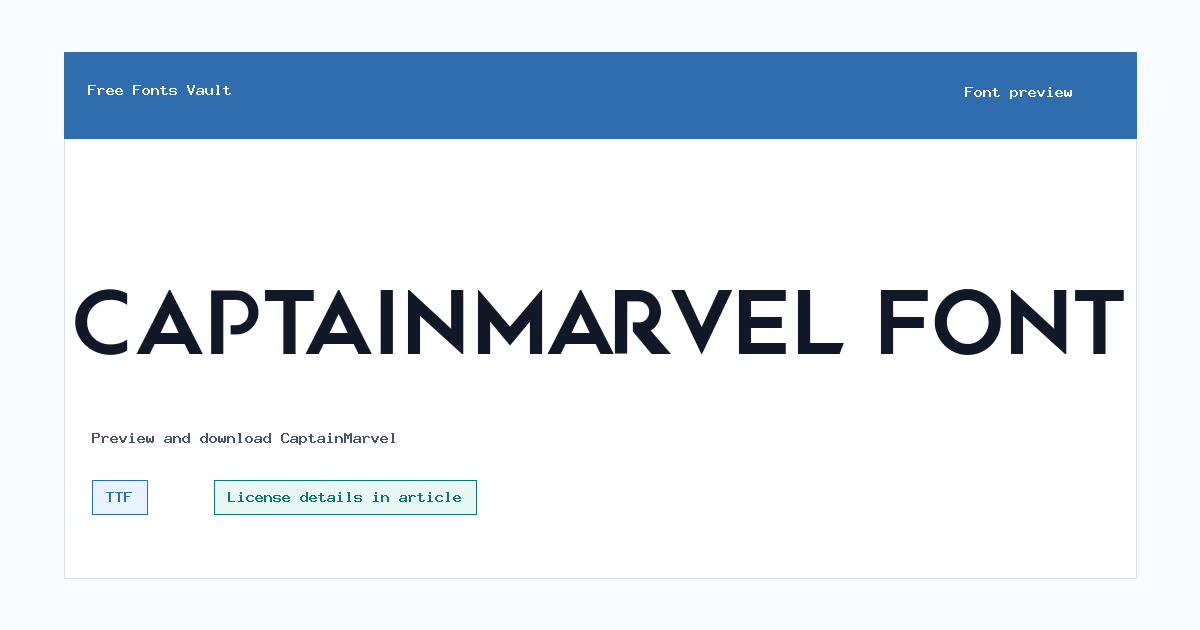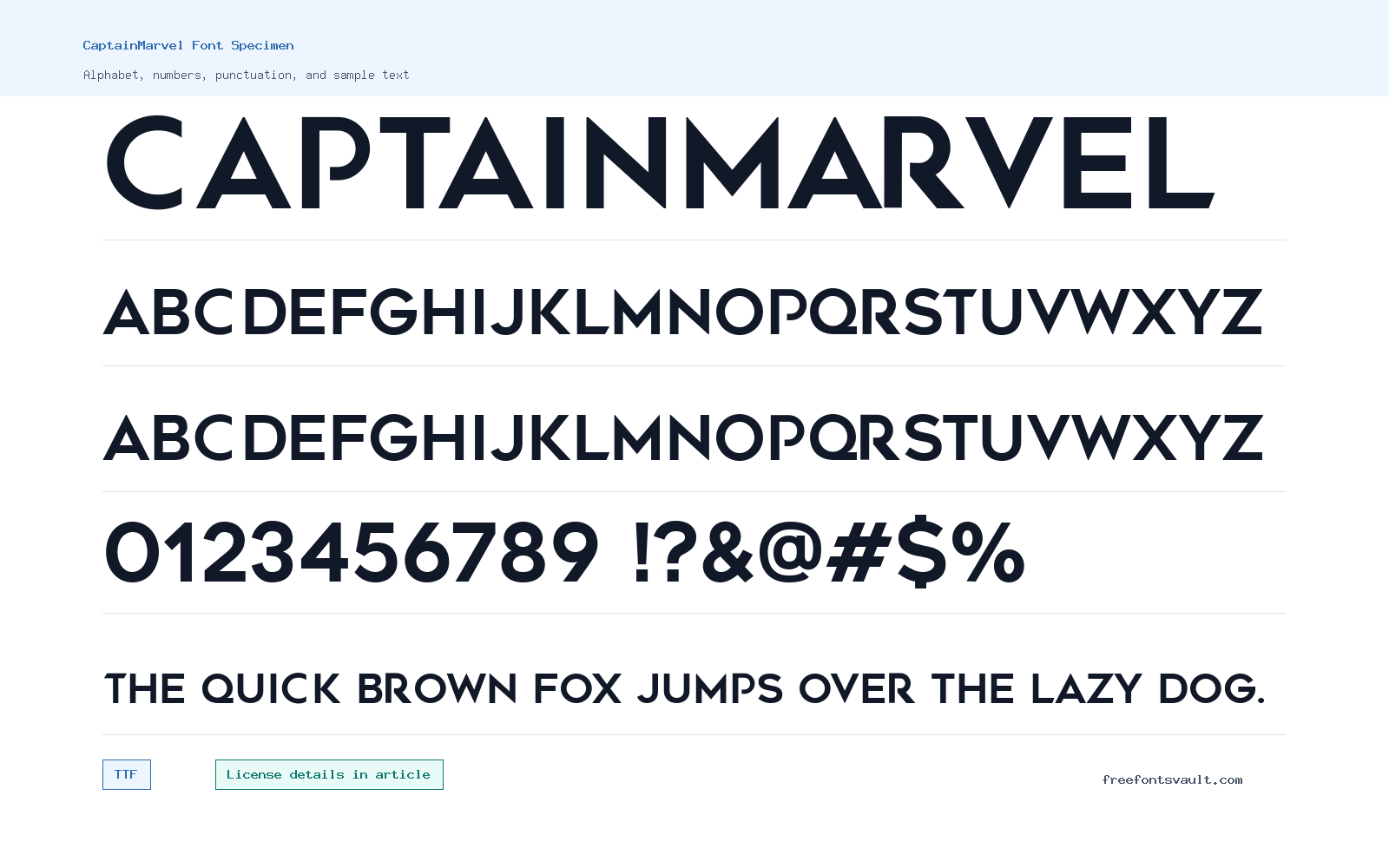
CaptainMarvel
CaptainMarvel is a display-style TTF font made for short, bold text where the preview needs to feel strong and attention-grabbing.
About CaptainMarvel Font
CaptainMarvel is a regular TTF display font for short, bold text. The name points toward a comic or entertainment-style mood, so treat it as a decorative headline choice rather than a quiet reading font. Use the preview box to test uppercase letters, numbers, punctuation, and the exact words you plan to design with, because display fonts can change character from one phrase to another.
This font works best in short settings such as titles, fan-style graphics, thumbnails, posters, banners, stickers, and social images. Keep the text brief and give the letters enough spacing around them. For longer writing, pair it with a clean sans serif or serif font so the headline keeps its impact without hurting readability.
- Best kept to large display text where the style can be read quickly
- Short headlines, poster titles, and banner text
- Fan-style graphics, thumbnails, stickers, and display layouts